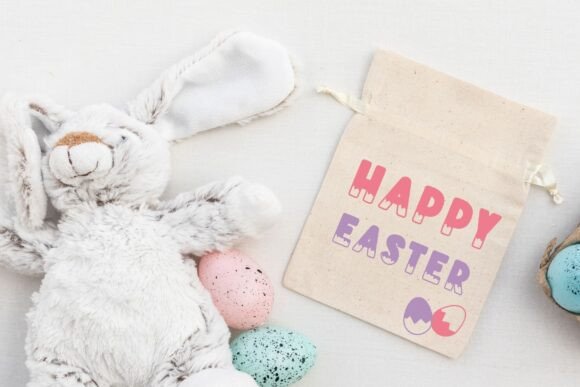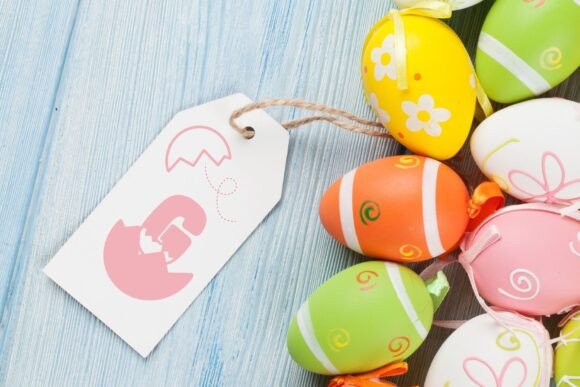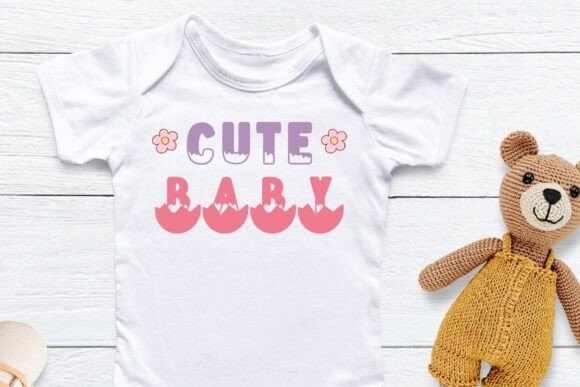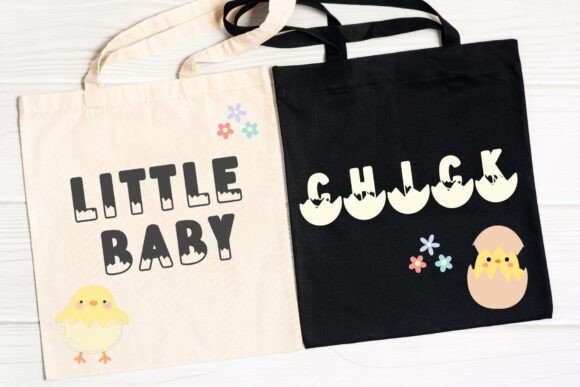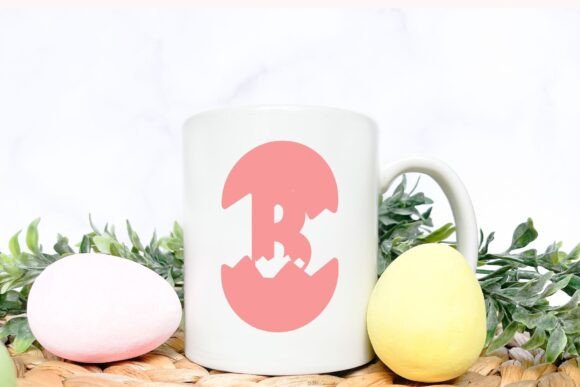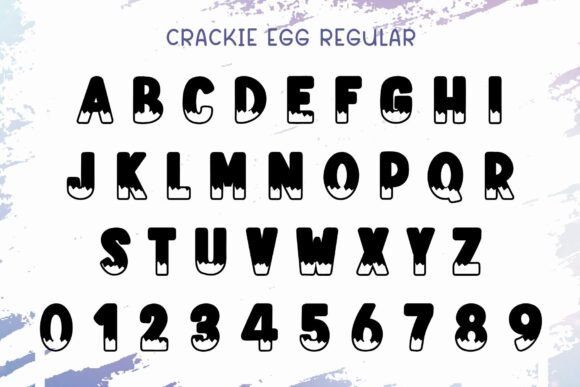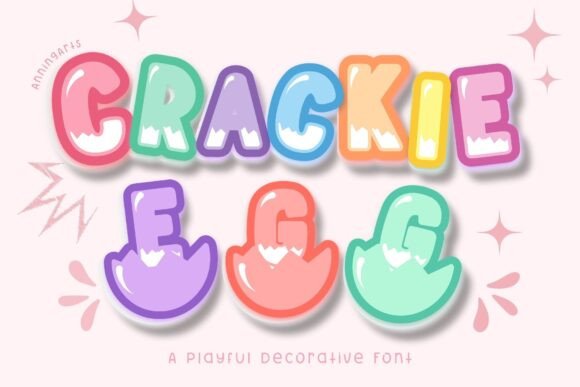
Crackie Egg Font: The Perfect Addition to Your Easter and Spring Designs
Are you looking for a fun and playful font to add a touch of springtime joy to your designs? Look no further than the Crackie Egg Font! Inspired by Easter vibes and pastel-colored cracked eggs, this decorative font is perfect for crafting adorable greeting cards, stickers, party decor, kids’ T-shirts, sublimation prints, and more.
What is Crackie Egg Font?
Crackie Egg Font is a unique and whimsical font that features a broken-egg design for each letter. The font is inspired by the joy and playfulness of springtime and Easter, making it perfect for designers and crafters who want to add a touch of festive fun to their projects.
Features of Crackie Egg Font
- Whimsical Design: Each letter features a unique and playful broken-egg design that’s sure to bring a smile to anyone’s face.
- Pastel Colors: The font is inspired by pastel colors, making it perfect for spring and Easter designs.
- Decorative: Crackie Egg Font is a decorative font that’s perfect for adding a touch of fun and playfulness to your designs.
- Versatile: The font can be used for a variety of projects, including greeting cards, stickers, party decor, kids’ T-shirts, sublimation prints, and more.
Uses for Crackie Egg Font
Crackie Egg Font is a versatile font that can be used for a variety of projects. Here are some ideas to get you started:
- Greeting Cards: Add a touch of springtime joy to your greeting cards with Crackie Egg Font.
- Stickers: Create adorable stickers for kids’ parties, Easter baskets, or springtime celebrations.
- Party Decor: Use Crackie Egg Font to create festive party decor, such as banners, garlands, and more.
- Kids’ T-Shirts: Design fun and playful kids’ T-shirts with Crackie Egg Font.
- Sublimation Prints: Create beautiful sublimation prints with Crackie Egg Font, perfect for spring and Easter gifts.
Tips for Using Crackie Egg Font
Here are some tips for using Crackie Egg Font in your designs:
- Pair with Other Fonts: Pair Crackie Egg Font with other fonts to create a unique and playful design.
- Experiment with Colors: Try out different colors and color combinations to find the perfect look for your design.
- Add Graphics: Add graphics, such as eggs, flowers, or springtime-themed images, to enhance your design.
- Keep it Simple: Don’t be afraid to keep your design simple and let Crackie Egg Font be the star of the show.
Crackie Egg Font is a fun and playful decorative font that’s perfect for adding a touch of springtime joy to your designs. With its whimsical broken-egg design and pastel colors, this font is sure to bring a smile to anyone’s face. Whether you’re a designer or crafter, Crackie Egg Font is a great addition to your font collection. So why not give it a try and see what amazing designs you can create?